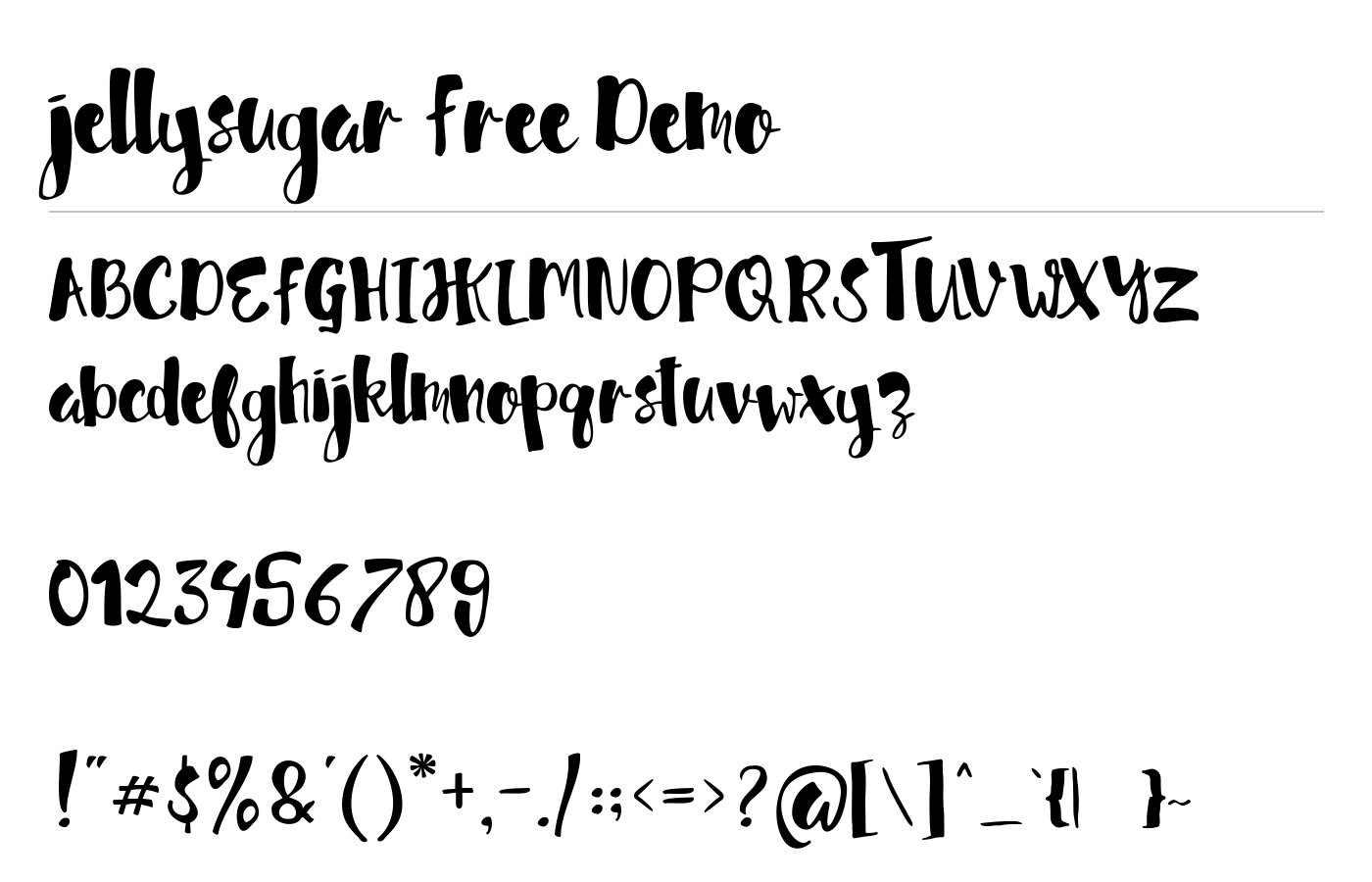
Jellysugar Demo is a lively and bold handwritten script font with a playful, casual charm. Its thick, irregular strokes and quirky letterforms give it a friendly, approachable feel, perfect for creative projects, fun branding, and eye-catching headlines. This font works well where a personal, informal touch is desired, adding warmth and personality to designs.
Jellysugar Demo
About Jellysugar Demo
| Font family | Jellysugar Demo |
| Release date | 2016-12-16 |
| Designer | Queentype |